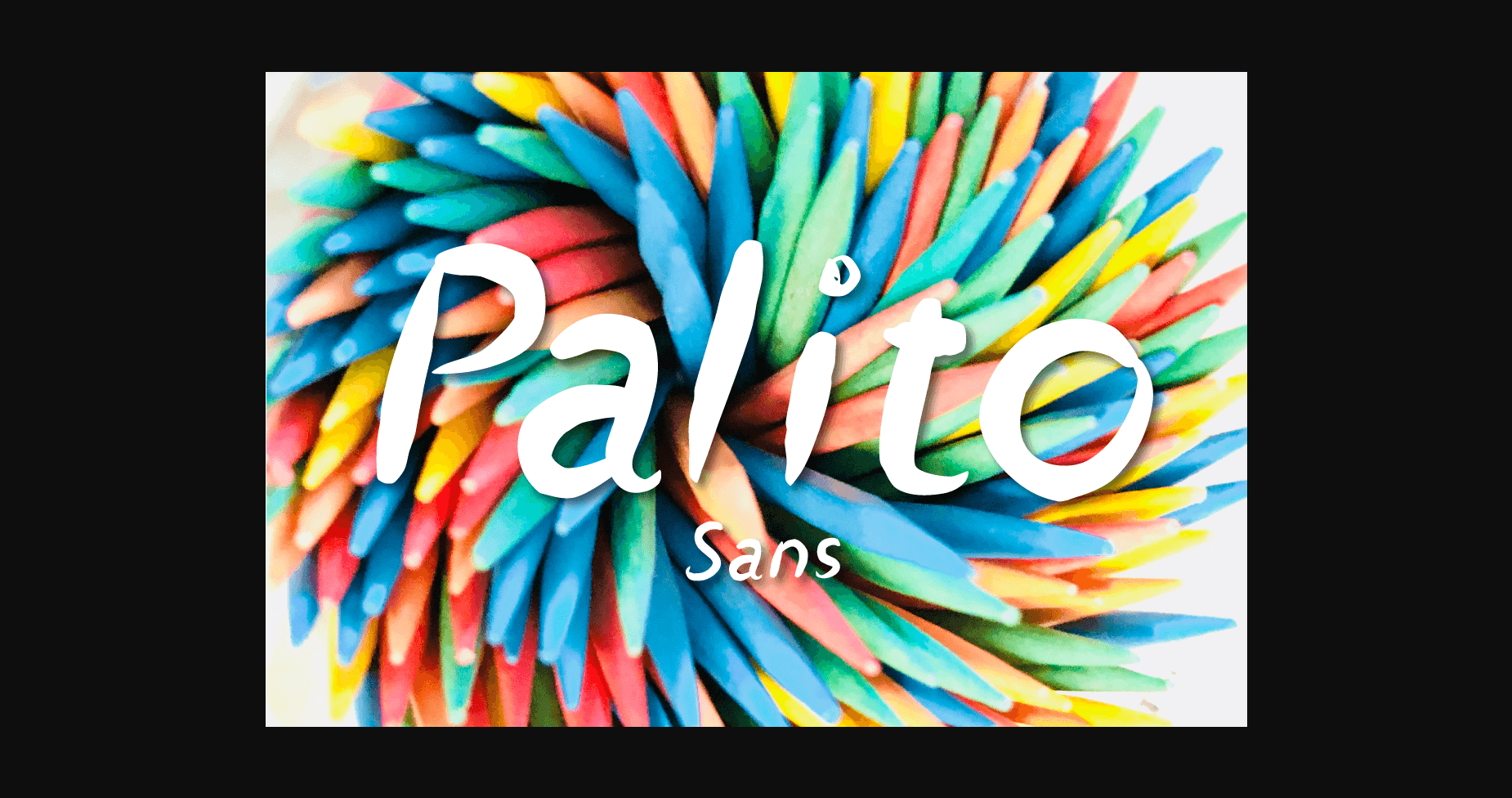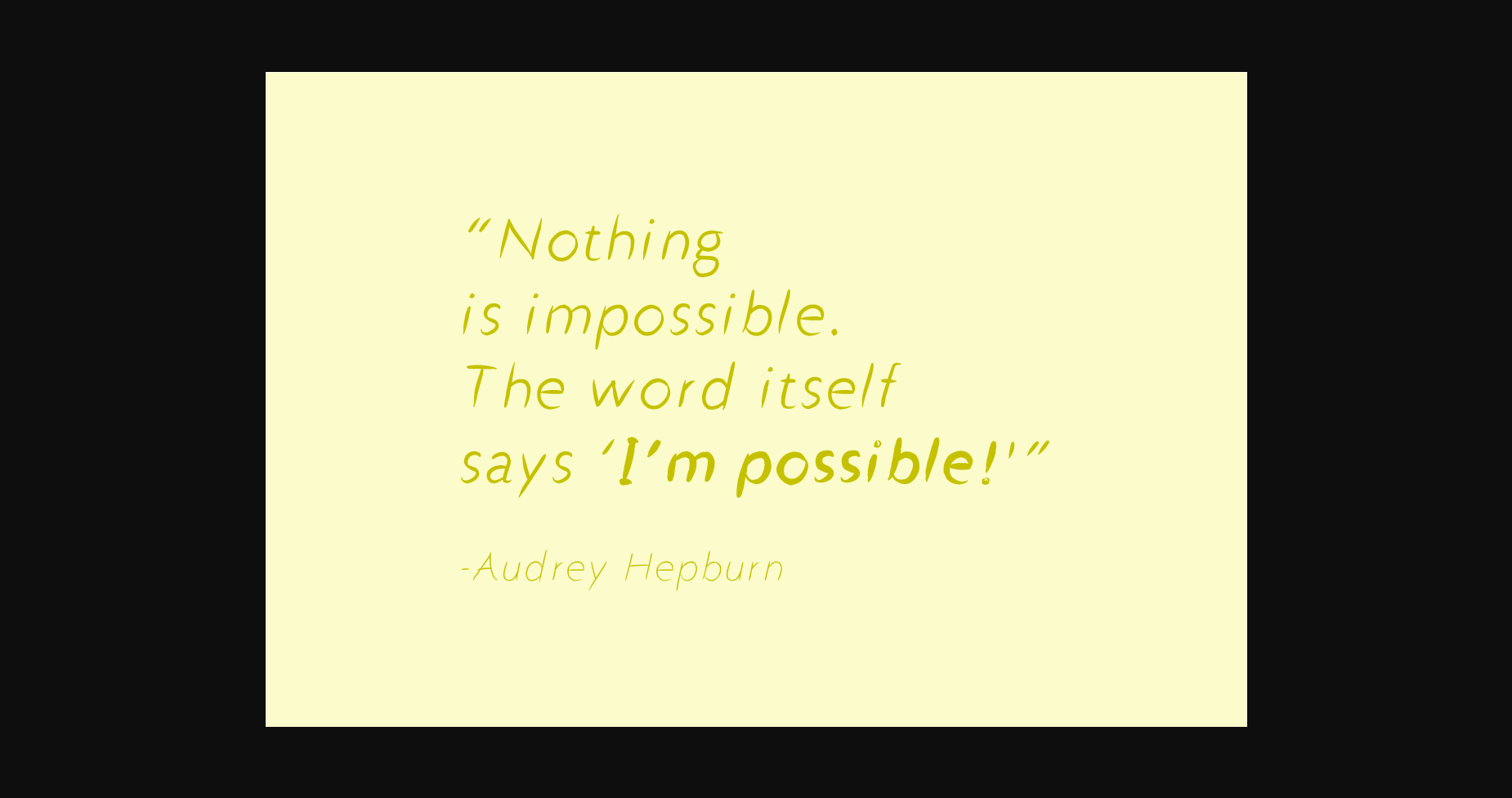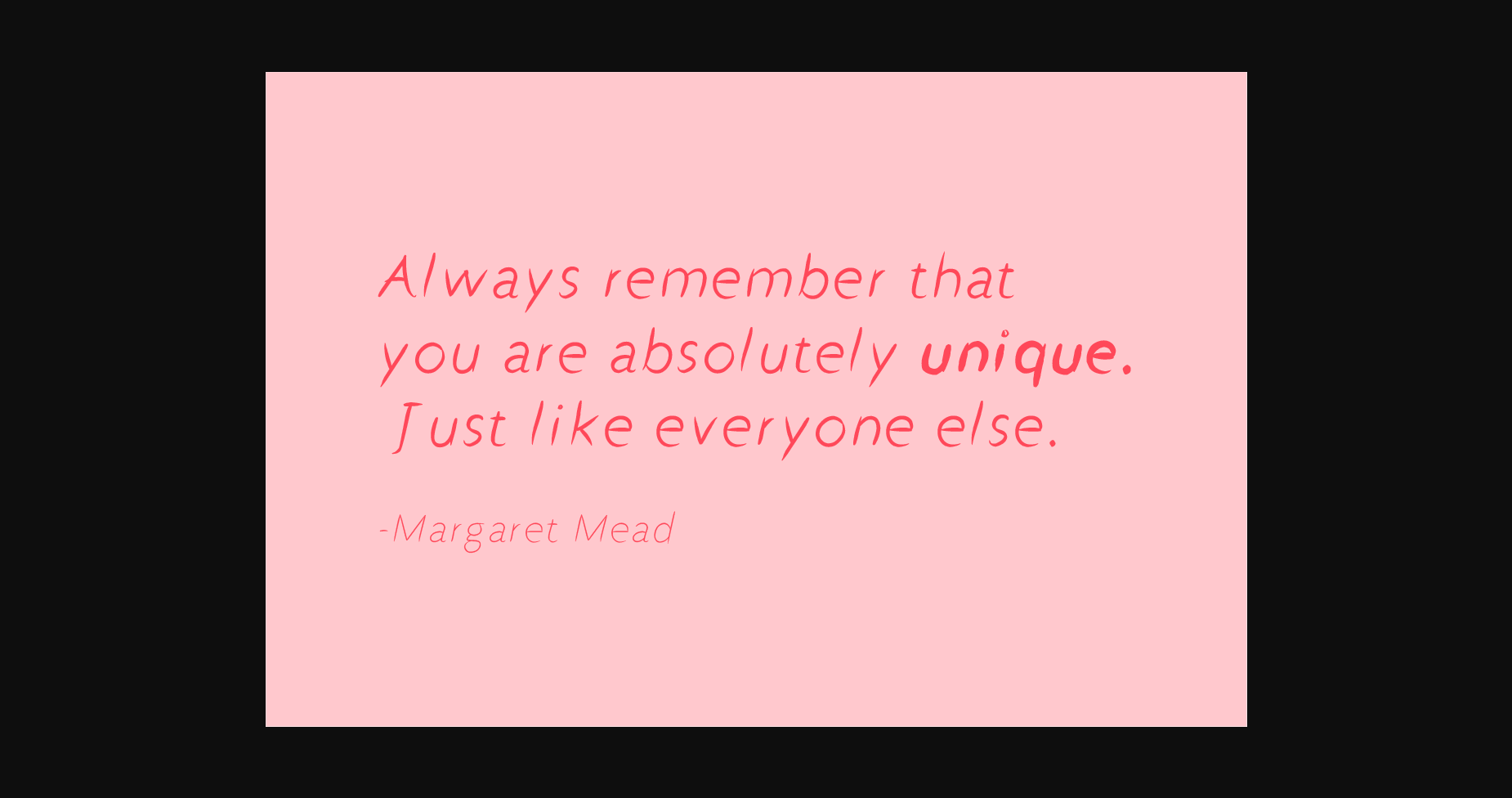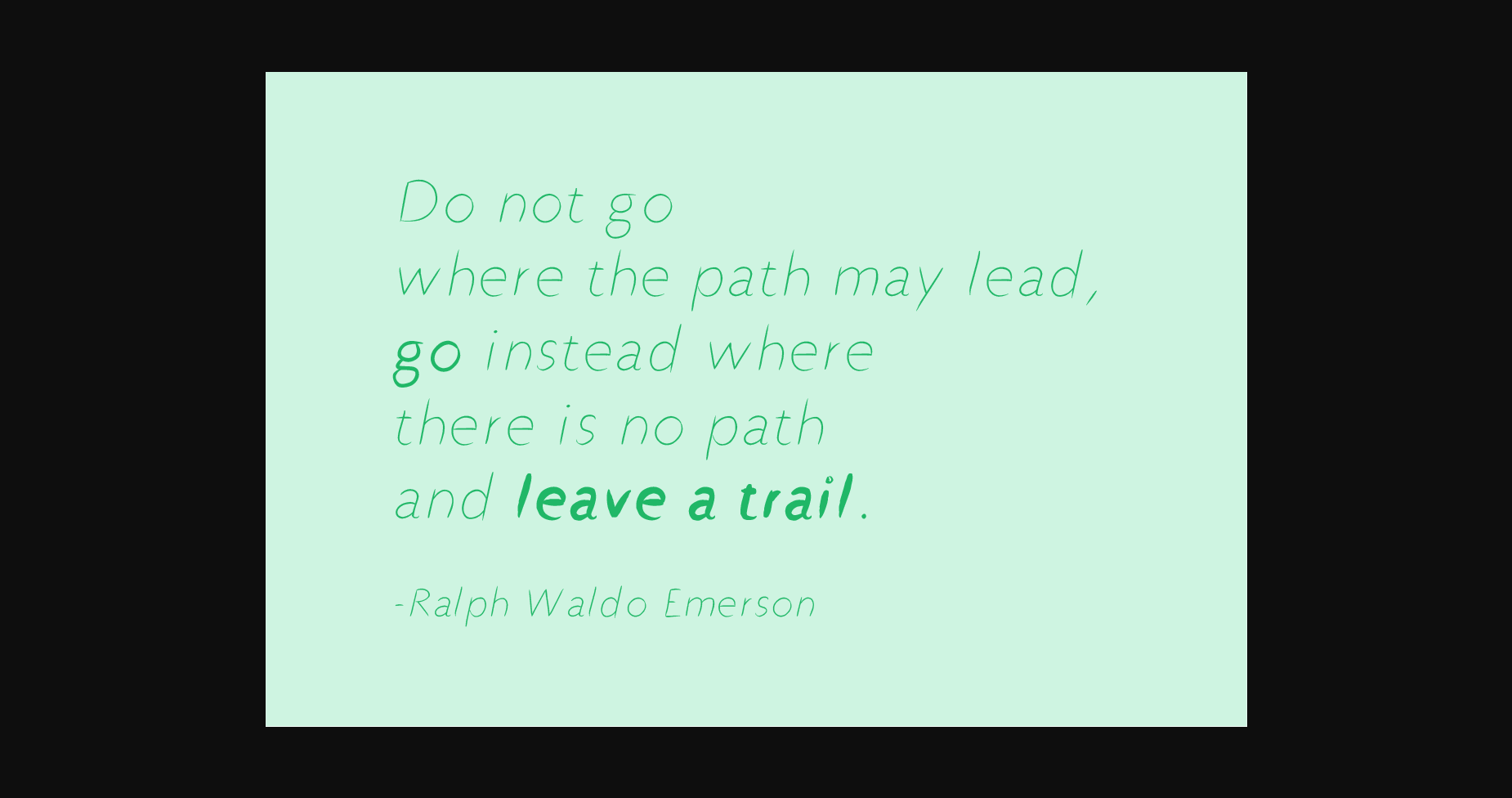
About Palito Sans Font
Palito Sans is a hand-drawn sans serif typeface with a handwritten character and beautiful swashes.
Palito Sans is perfect for creating quotes and any typography design.